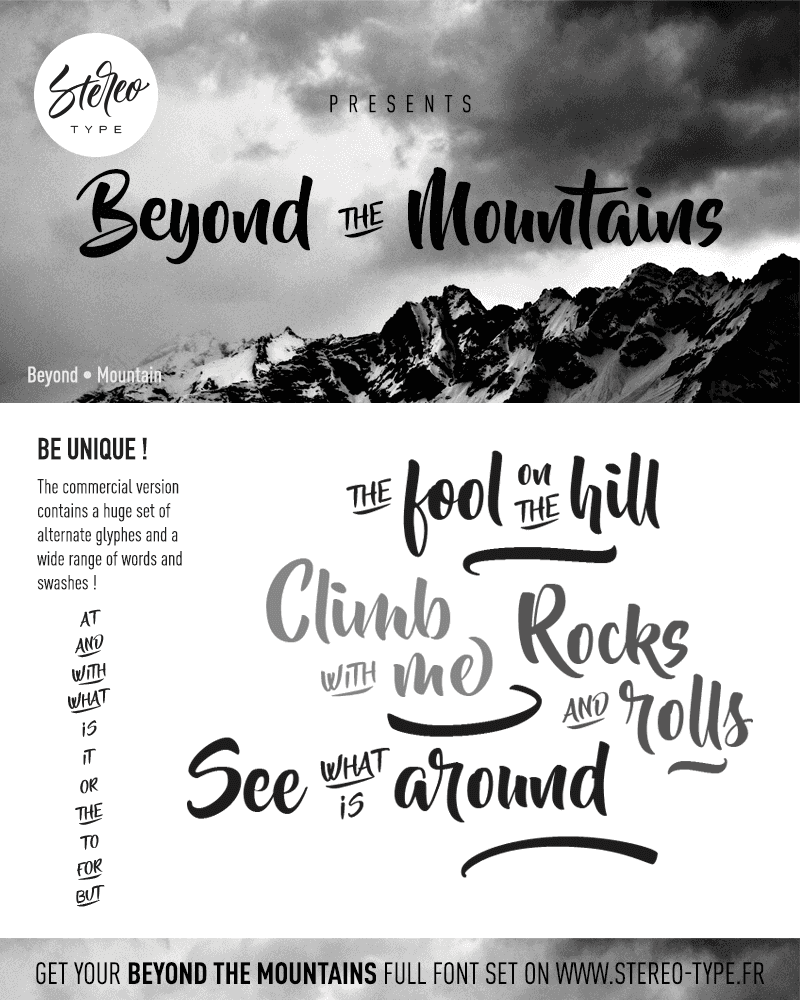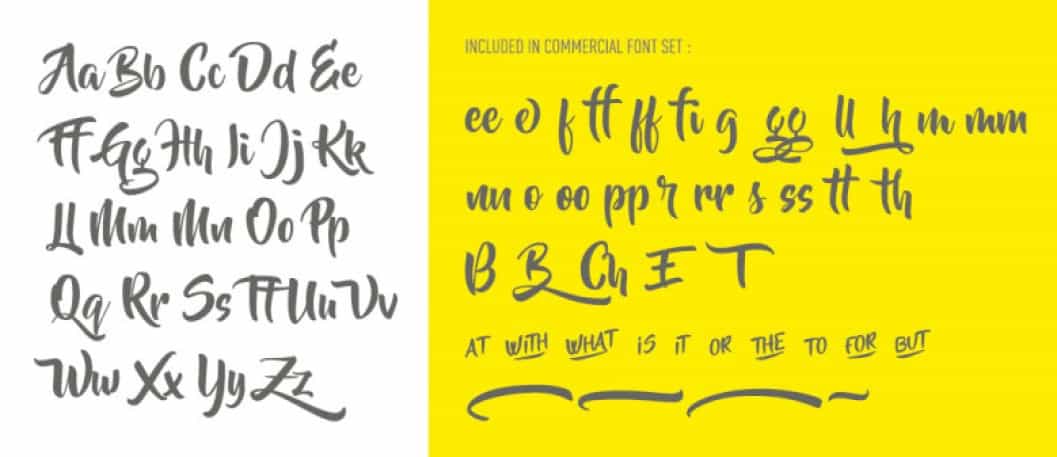
Discover Beyond The Mountains Font Free, part of the Brush collection—a versatile and unique font perfect for adding a personal touch to your projects. Download it for free and enjoy crafting designs with style, from invitations to social media posts. This font is available exclusively for personal use, giving you the freedom to create without limits. Unlock your creativity with Beyond The Mountains Font Free today!
Beyond The Mountains font is Avaliable now as a commercial version with Multiple alternate characters and Various swashes/ligatures to make your own signature. You can even edit PDF files that has it’s own font incorporated and all these are free to download.